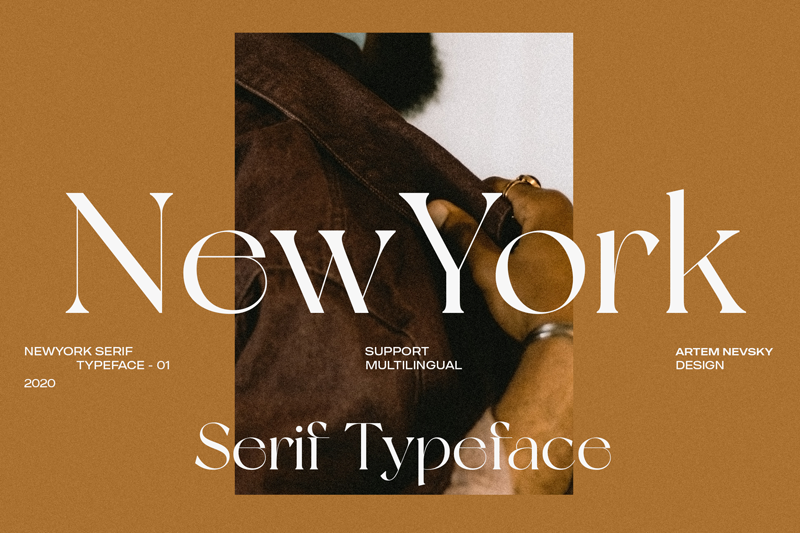
Preview and download Newyork Font. Created by Artem Nevsky in Basic Serif styles with 100% Free license.
New York is a new free font. This beautifully timeless serif is the definition of high fashion. This elegant free font needs to be in your collection and is perfect for your next luxury design project. Free for personal & desktop commercial use If you need more detailed information you can contact me at: nevsky.type@gmail.com Any donation is greatly appreciated. -------- Behance: https://www.behance.net/artemnevsky |